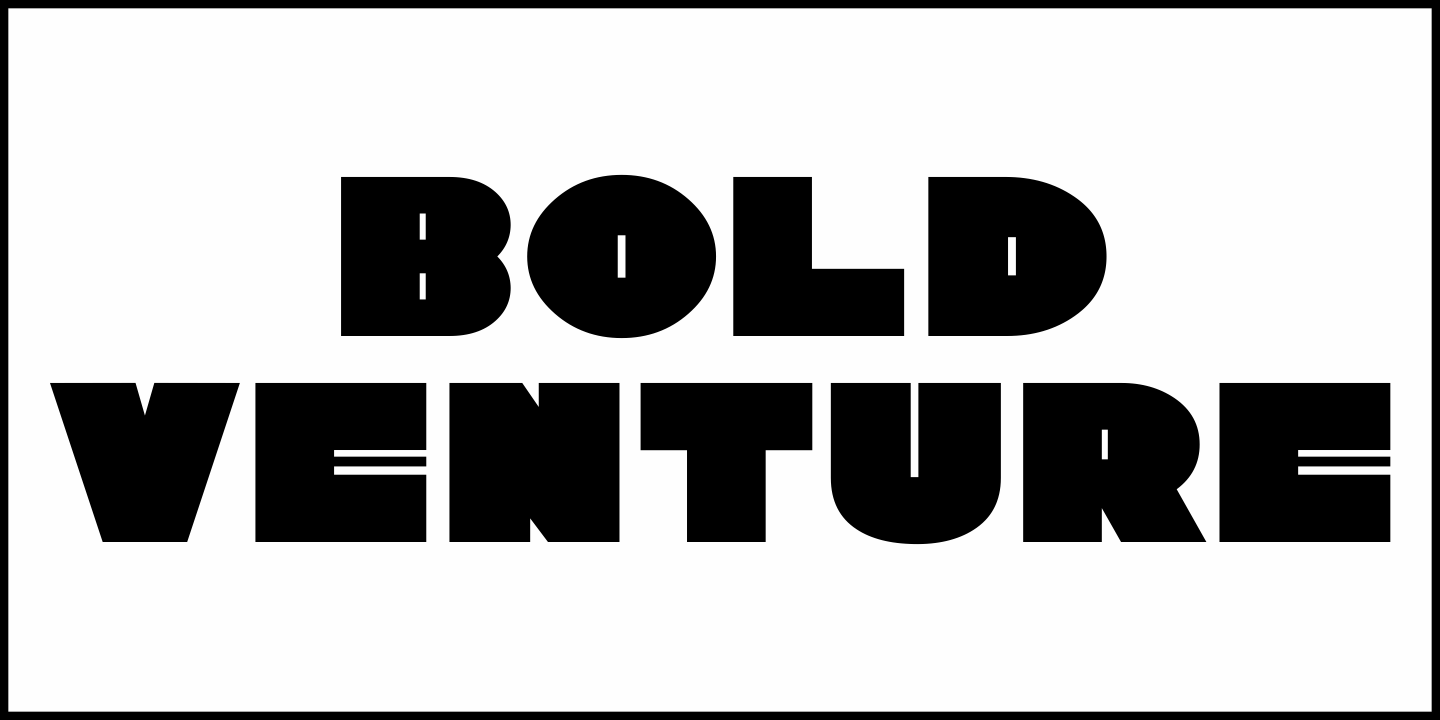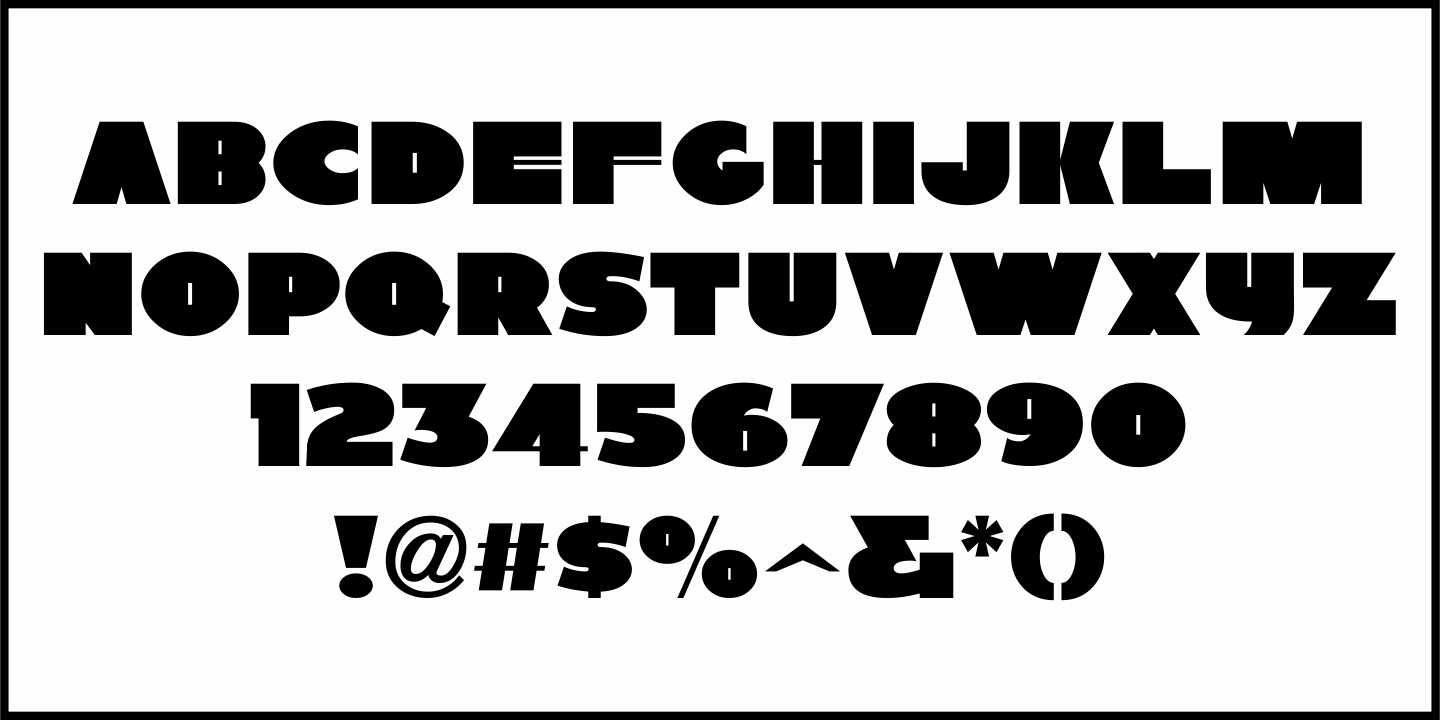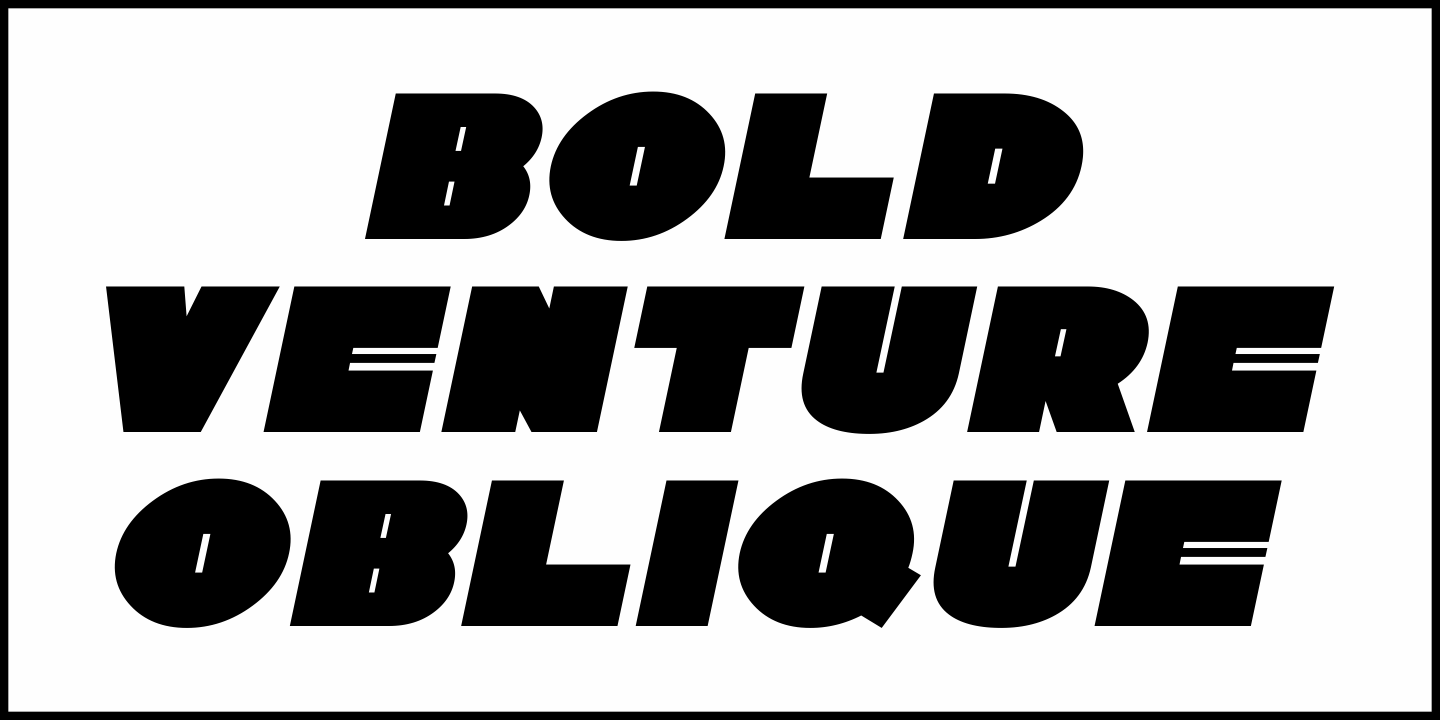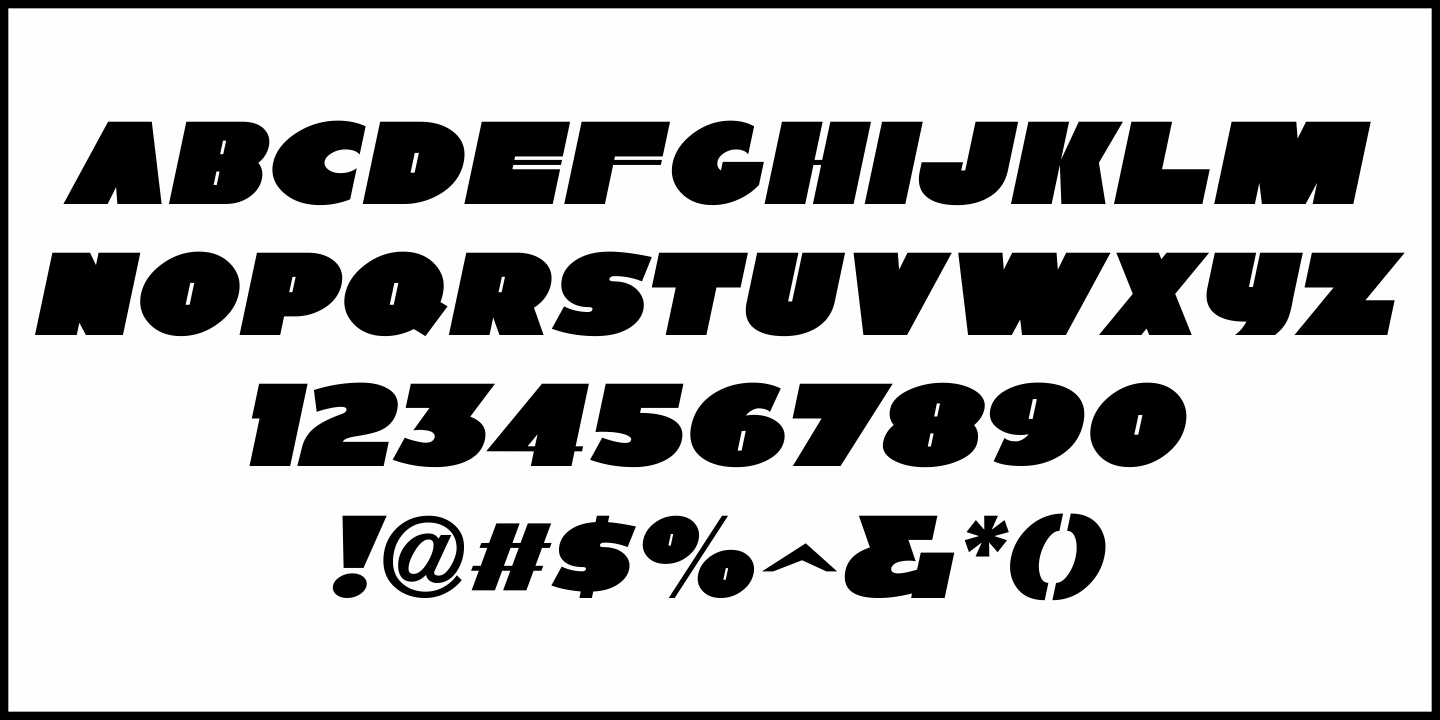
Bold Venture
An ad in the June 4, 1937 edition of Motion Picture Daily promoted numerous Warner Brothers film releases. Some of the lettering was rendered in a wide and ultra bold sans serif design with Art Deco influences.
This now available as Bold Venture JNL, and is available in both regular and oblique versions.